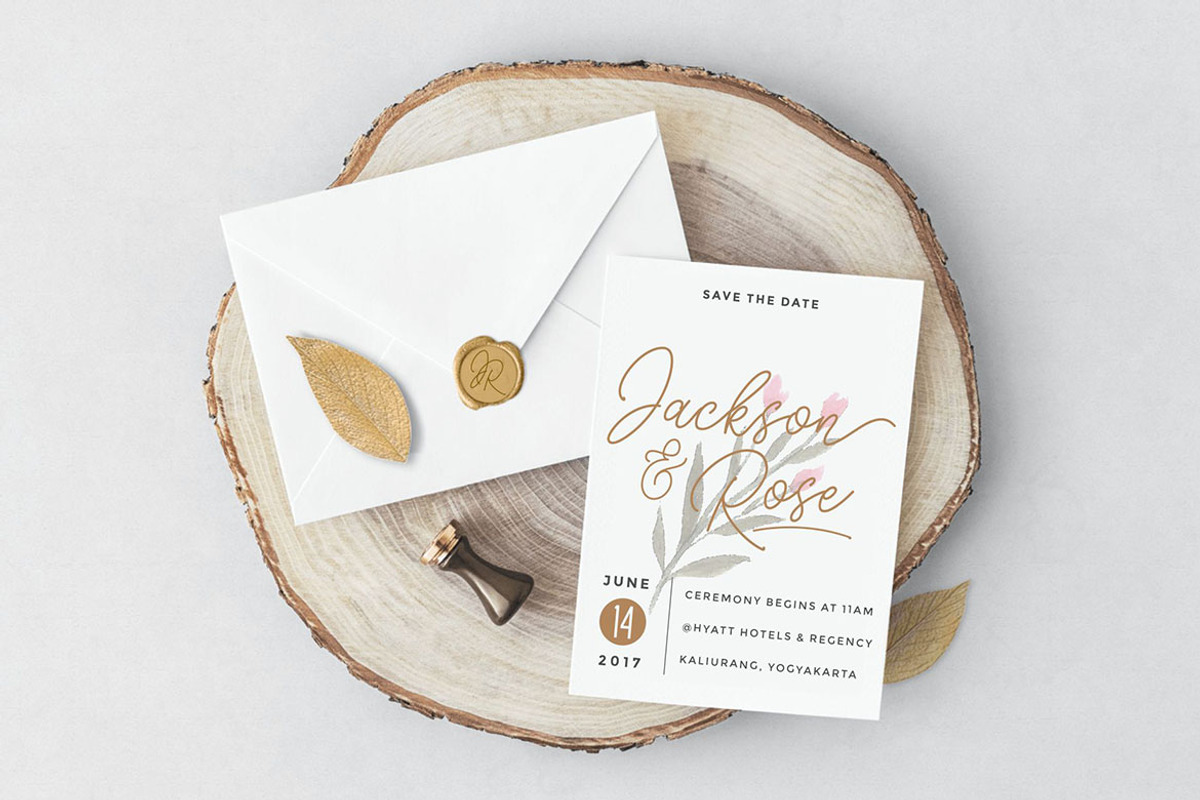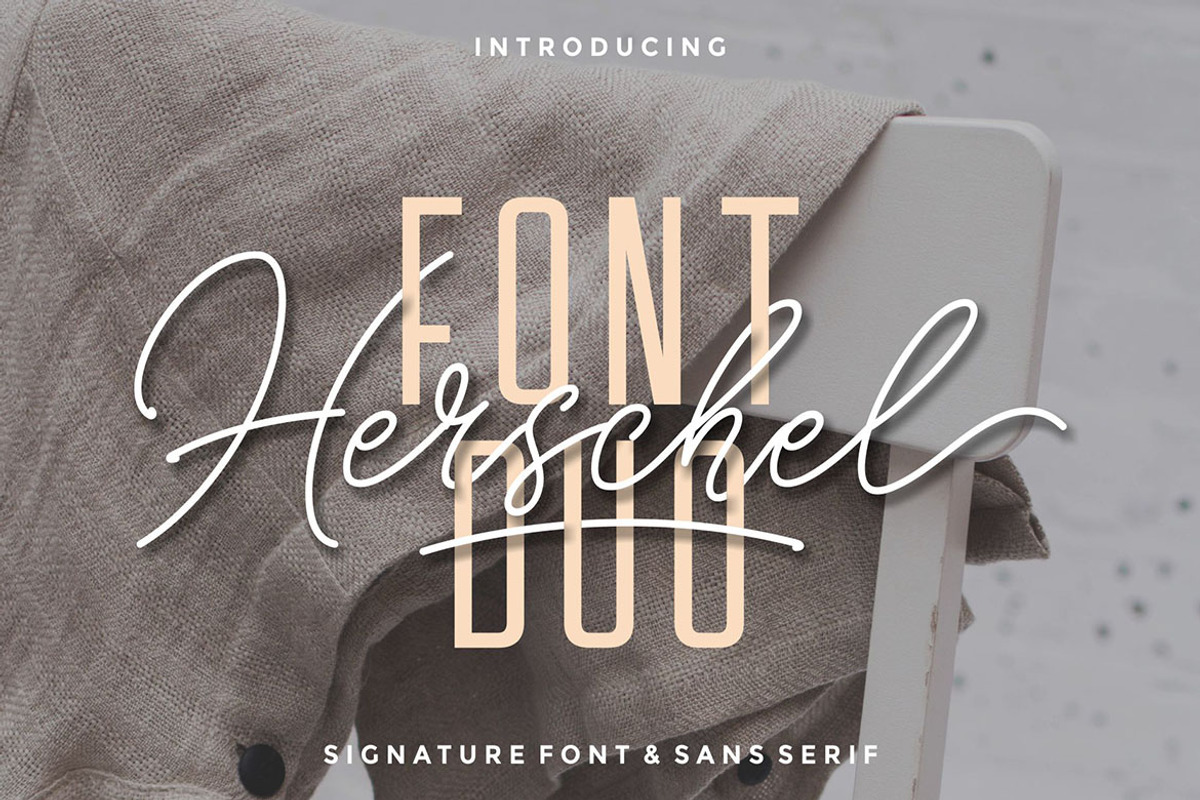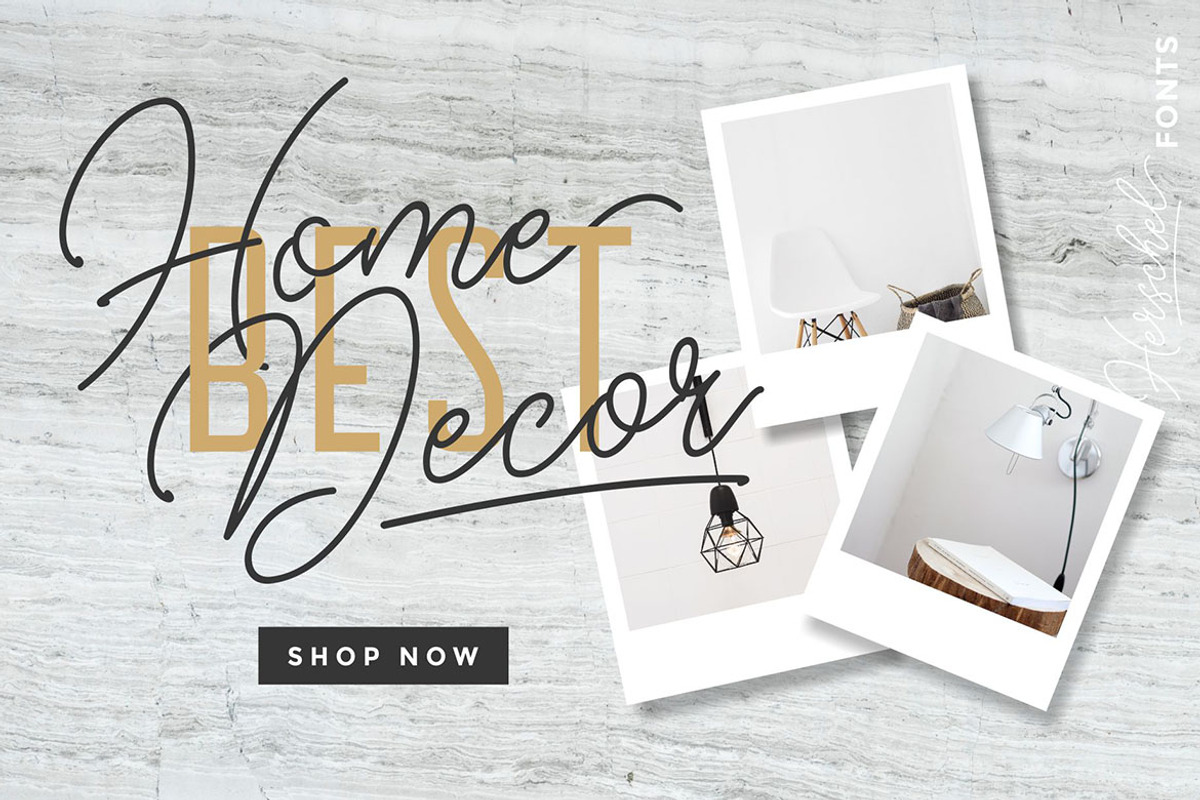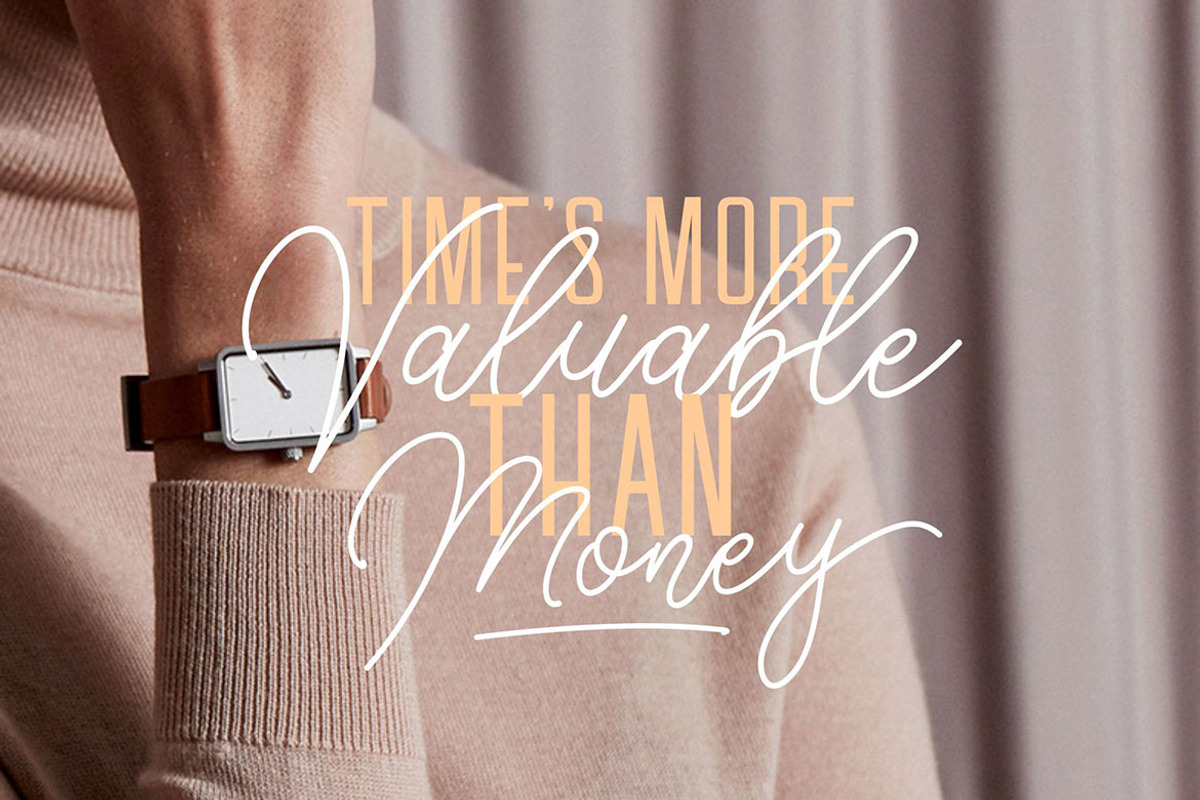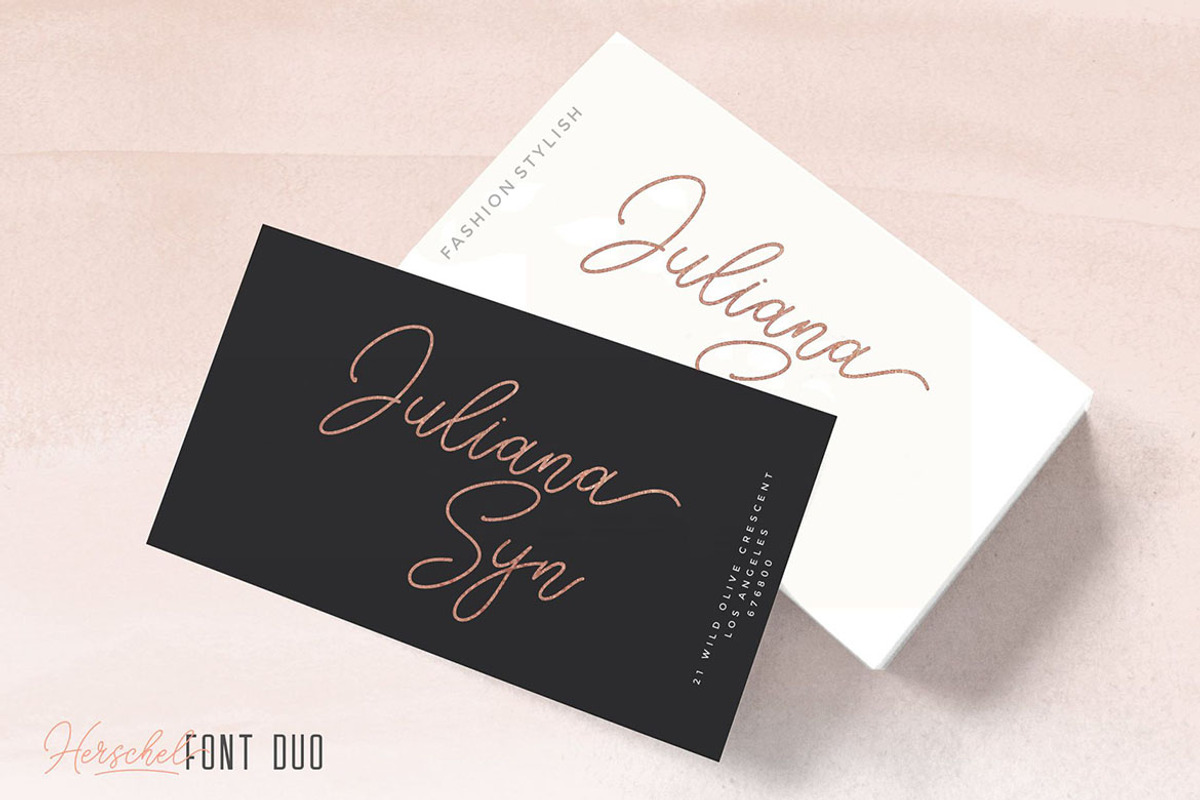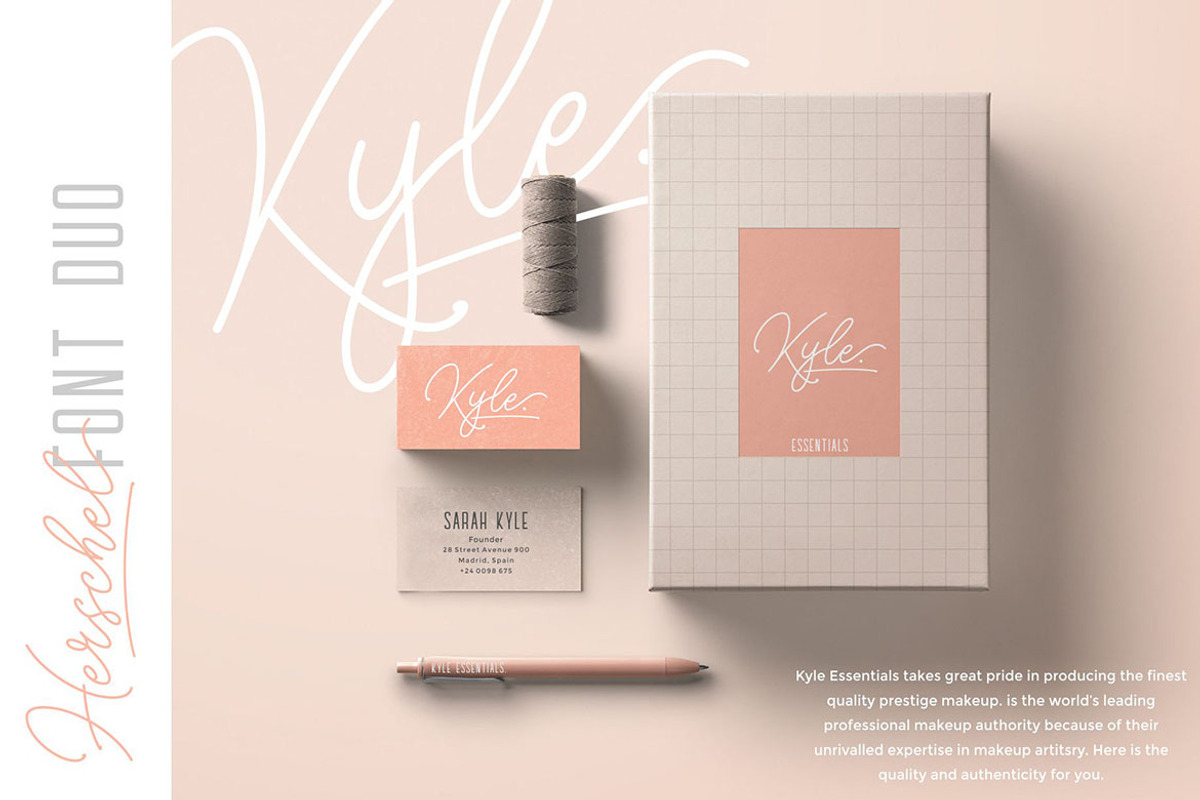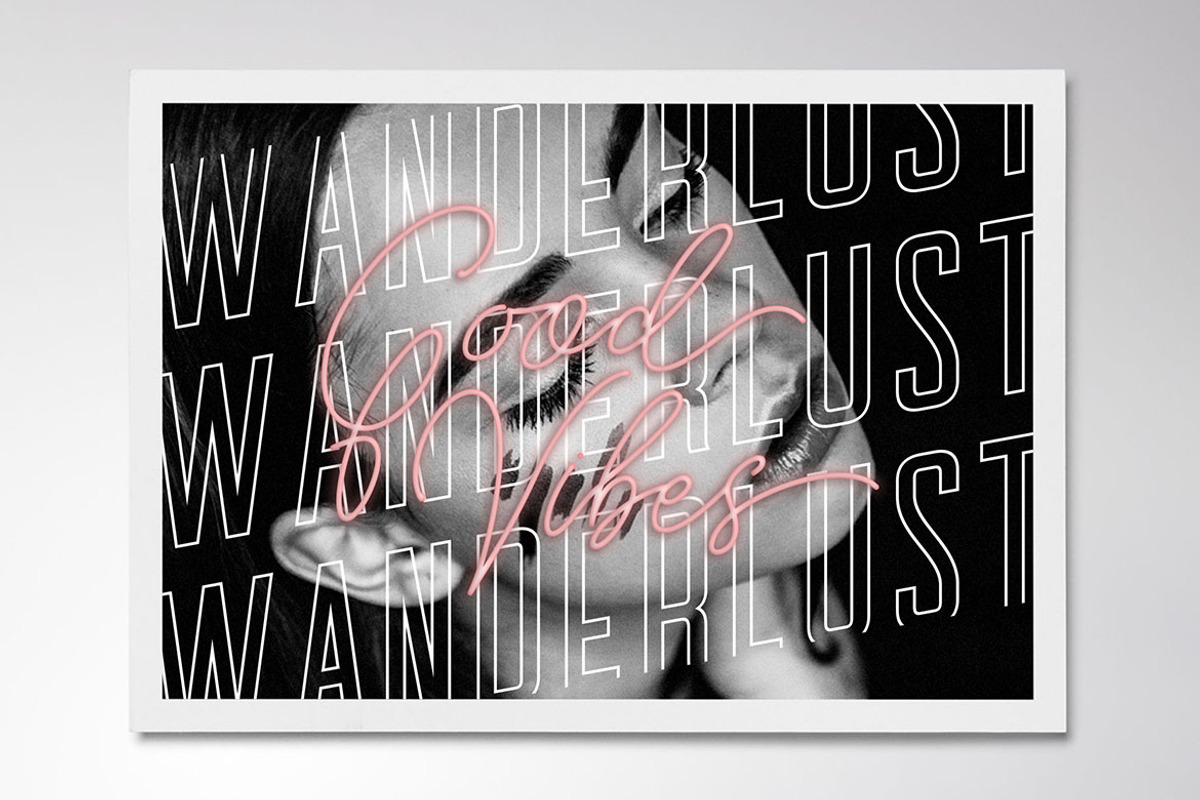
Herschel Font Duo
Script and sans font duo that is inspired by modern signature and sans combinations. With casual or fancy style you can create classy headers or texts. It works beautifully for personal branding, advertising or creative headers. With monoline script font, swash font & condensed sans font